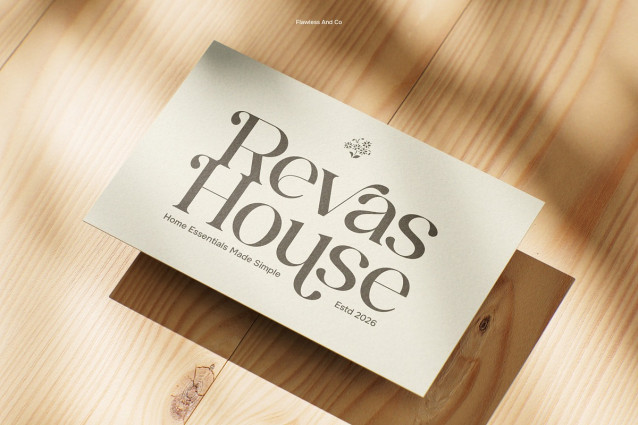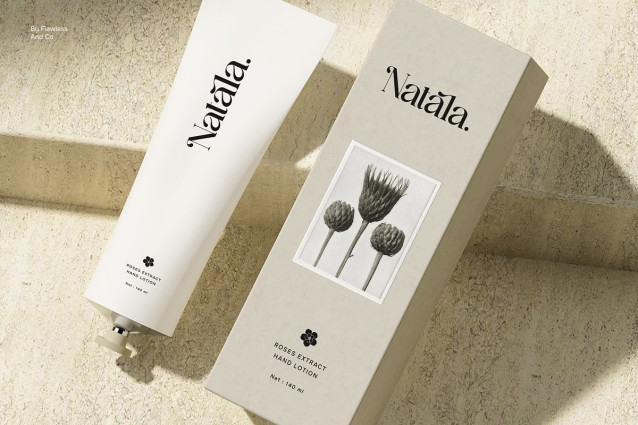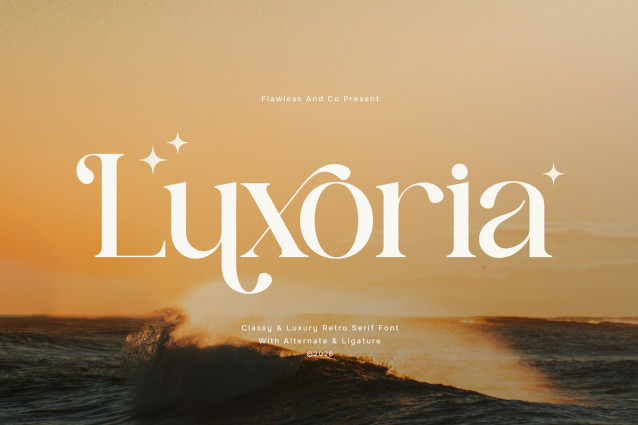
Luxoria Serif Font
Luxoria Serif Font is a classy, luxury and elegant retro serif font that captures the charm of vintage typography with a refined and sophisticated style. Designed with distinctive serif details, graceful curves, and balanced letterforms, Luxoria presents a timeless aesthetic that feels both nostalgic and luxurious. The font brings together retro character and modern elegance, creating a typeface that stands out with its stylish and polished appearance. Its elegant structure gives designs a sense of prestige and beauty, making it suitable for projects that aim to communicate luxury and refined taste.